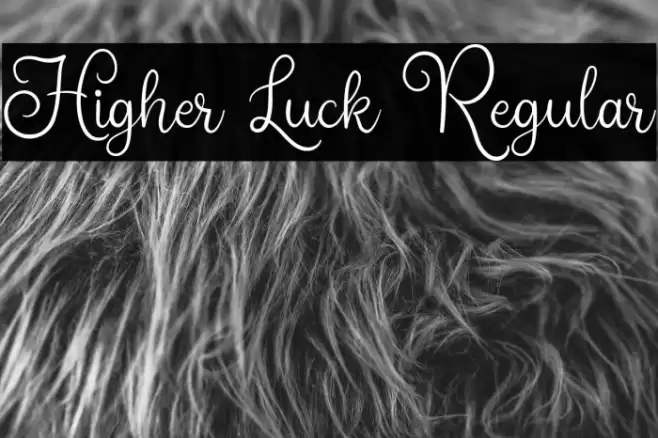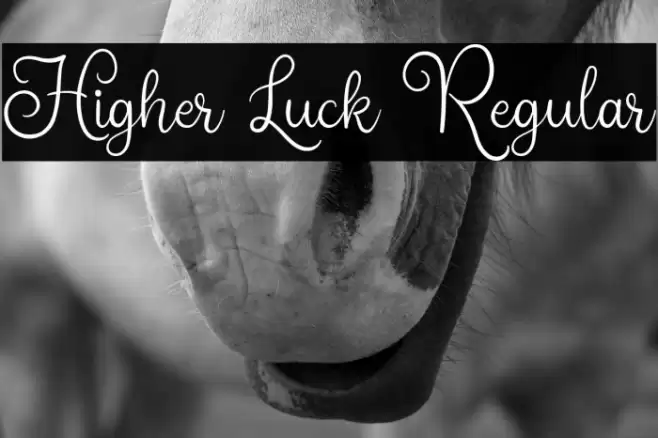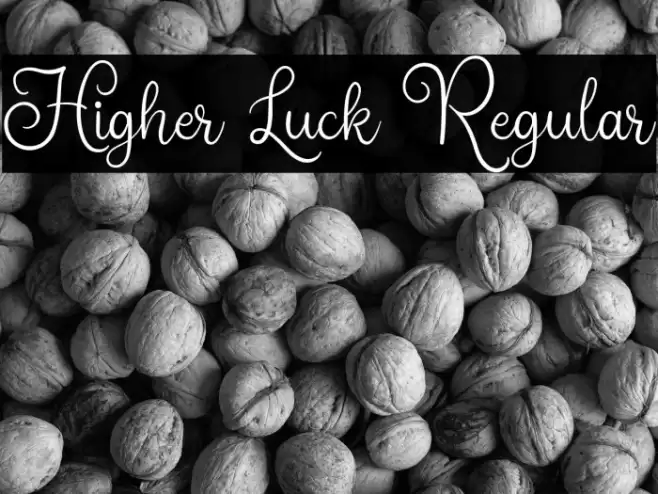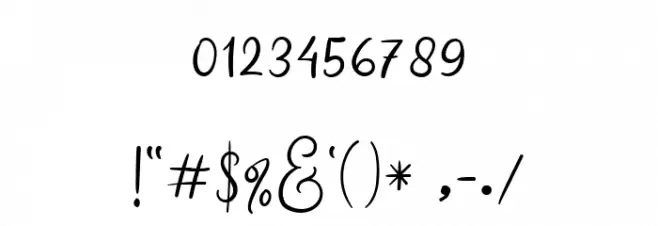
Higher Luck Regular Font
Higher Luck Regular Description
This elegant script font features a flowing, cursive style with intricate loops and swirls, giving it a sophisticated and artistic appearance. The uppercase letters are adorned with decorative flourishes, while the lowercase letters maintain a smooth and connected flow. The numerals and special characters complement the overall design, adding to its versatility. The font's graceful curves and balanced proportions make it suitable for a variety of creative projects.
An elegant script font with flowing, decorative curves and intricate loops from Regular fonts.
- Proposed Projects: Ideal for wedding invitations, greeting cards, branding, and elegant packaging designs.
- Use Case: Logos, Invitations, Decorative text